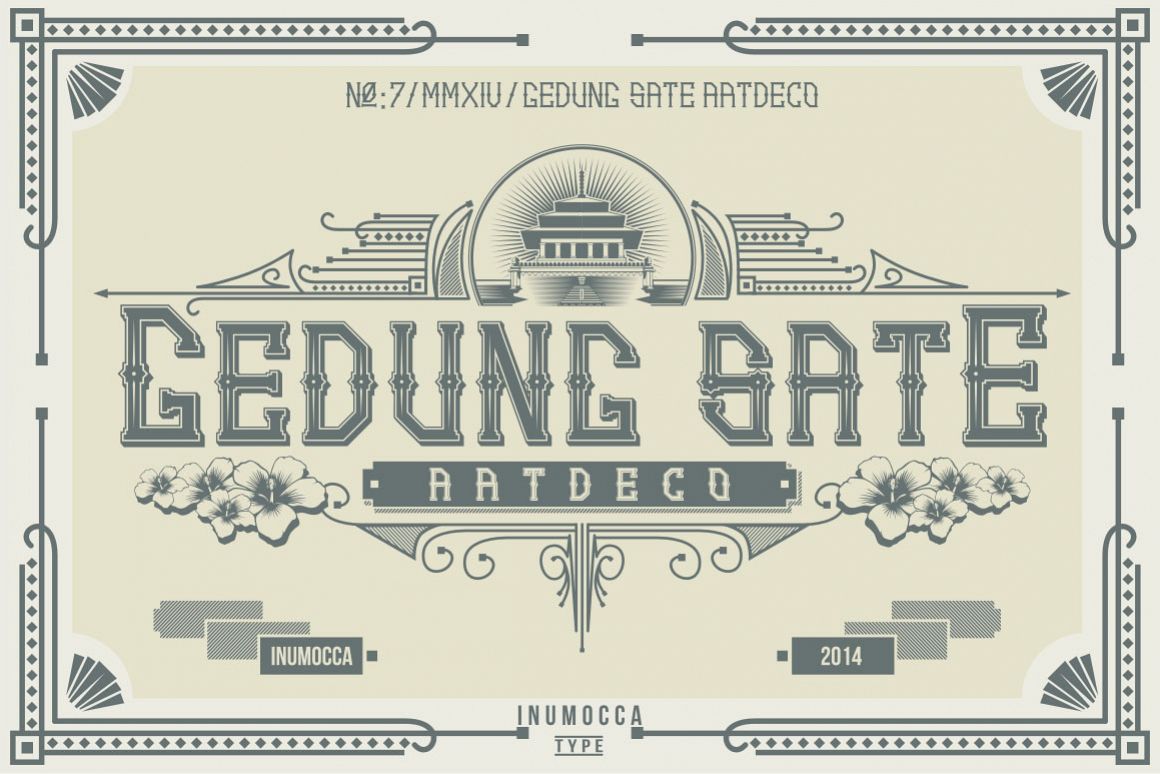
Artdeco family font
Gedung Sate Artdeco Shadow Basic stylic
Gedung Sate Artdeco Shadow Basic
Gedung sate Artdeco slice shadow
Gedung sate Artdeco
Gedung Sate Artdeco
Gedung Sate Artdeco inspired from Ornament,Building
and architectural style of Gedung sate Building in Bandung,
West Java, Indonesia
its really great font for your band, company, label,
clothing company, vintage or classic stuff, etc